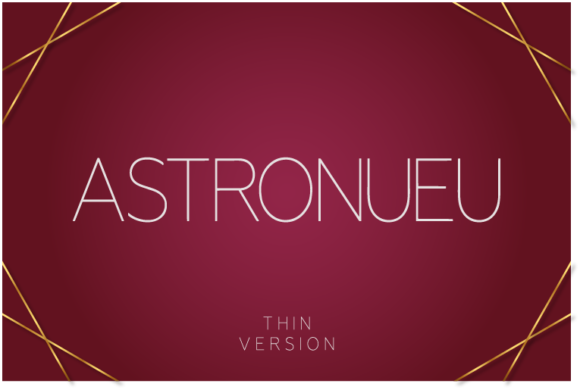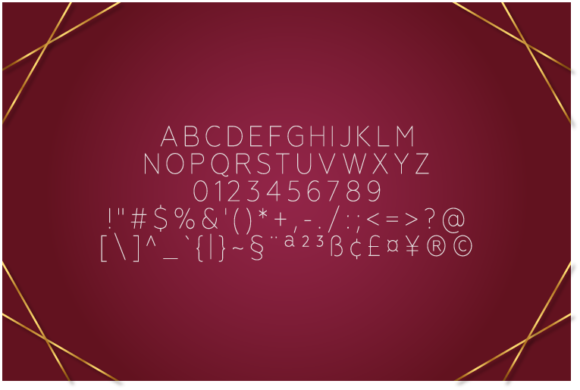
Astronueu Thin Font
About Astronueu Thin Font
Astronueu looks modern, yet sophisticated and features chunky and extended characters that will look particularly adept when used in logos, branding, packaging design, and much more. This masterfully designed Astronueu is a true must-have.